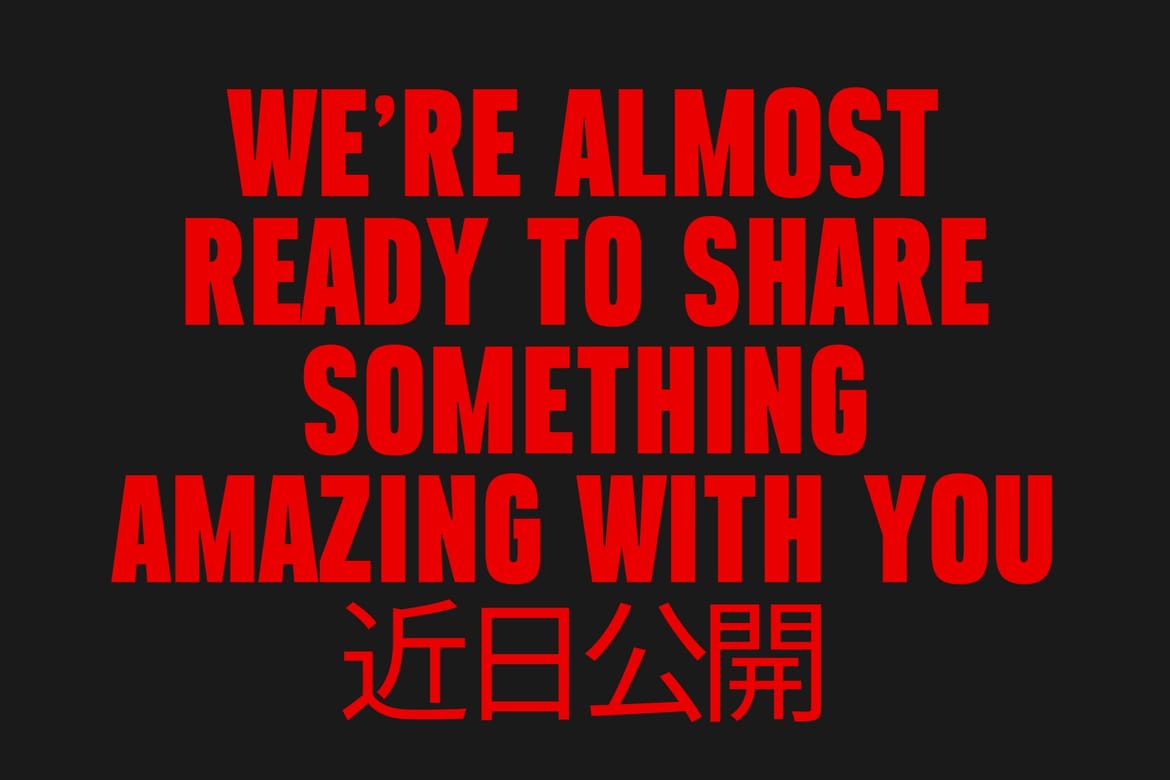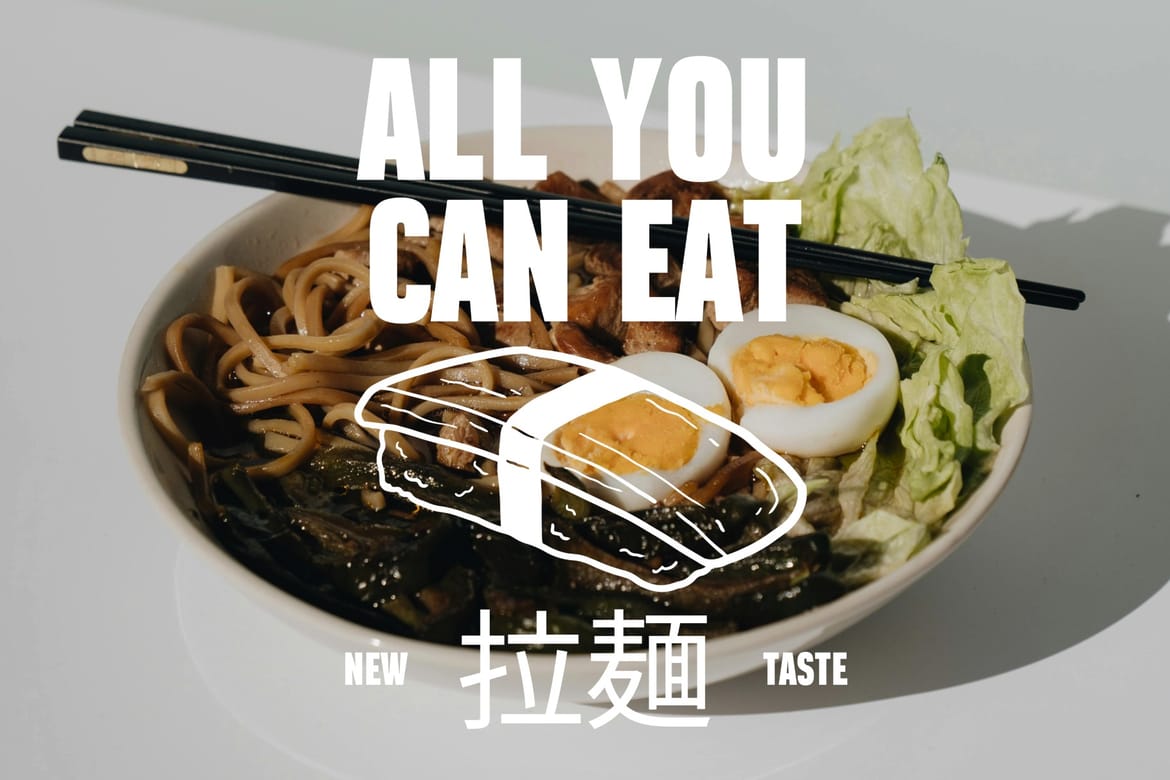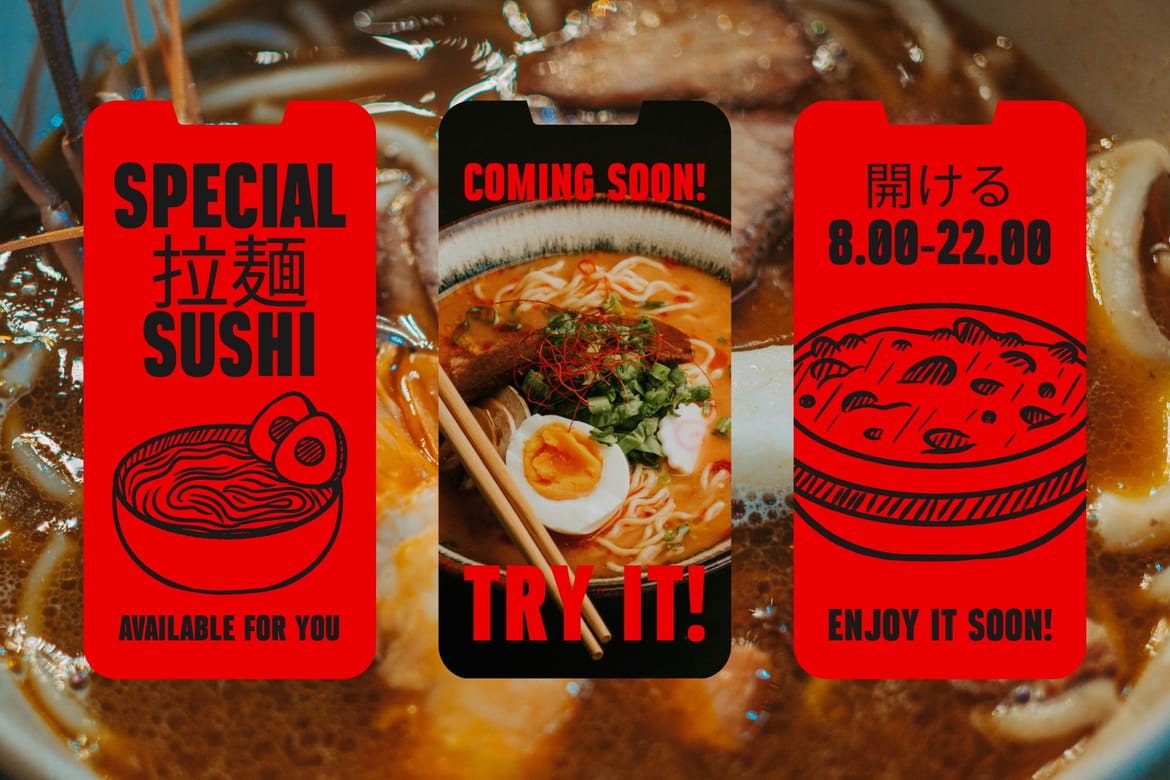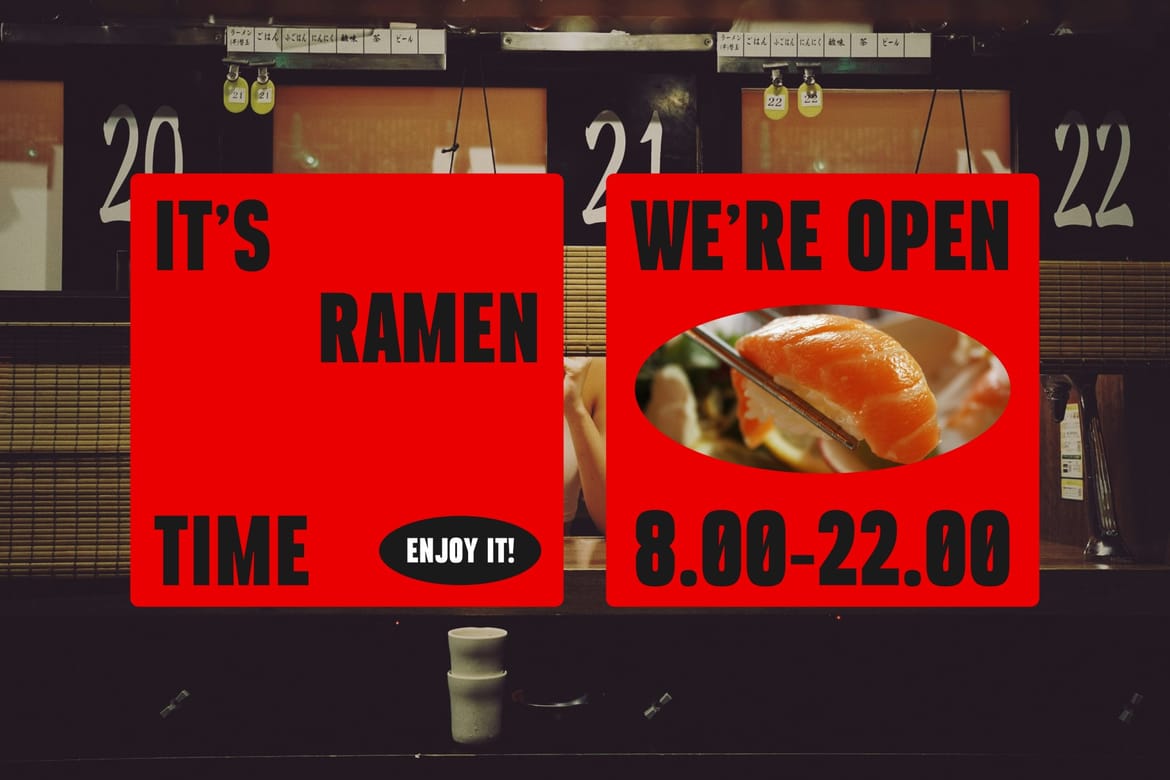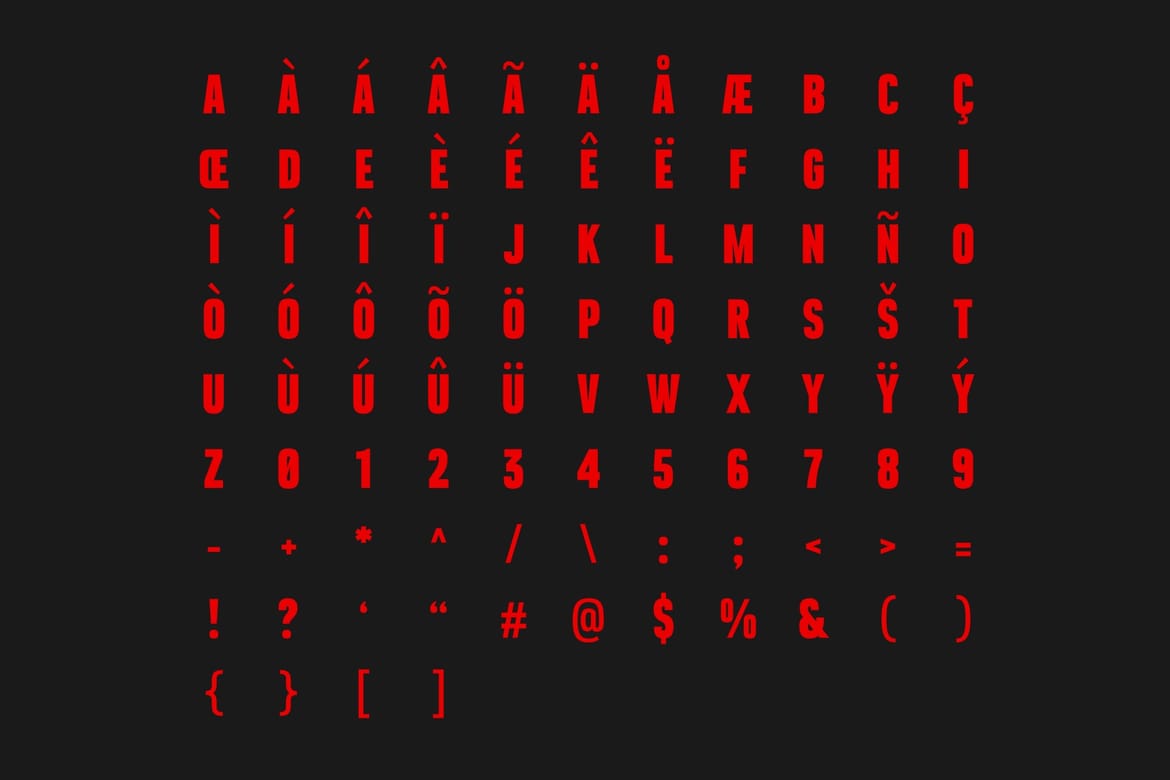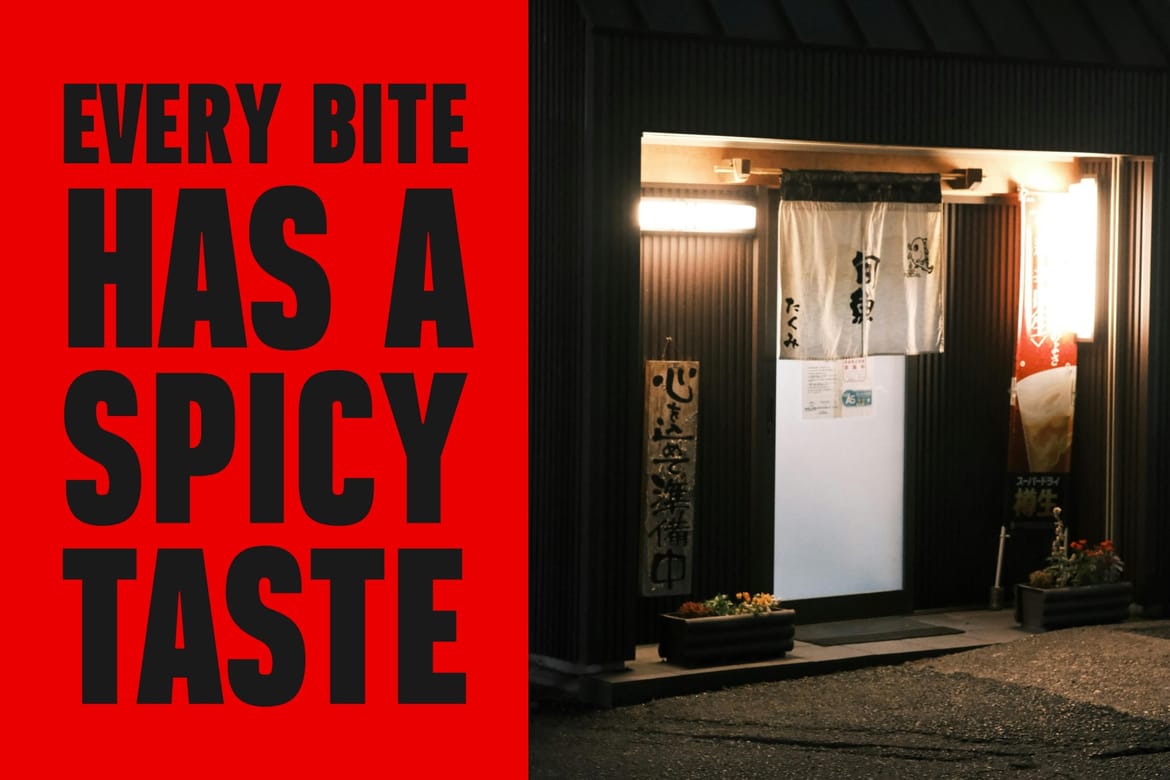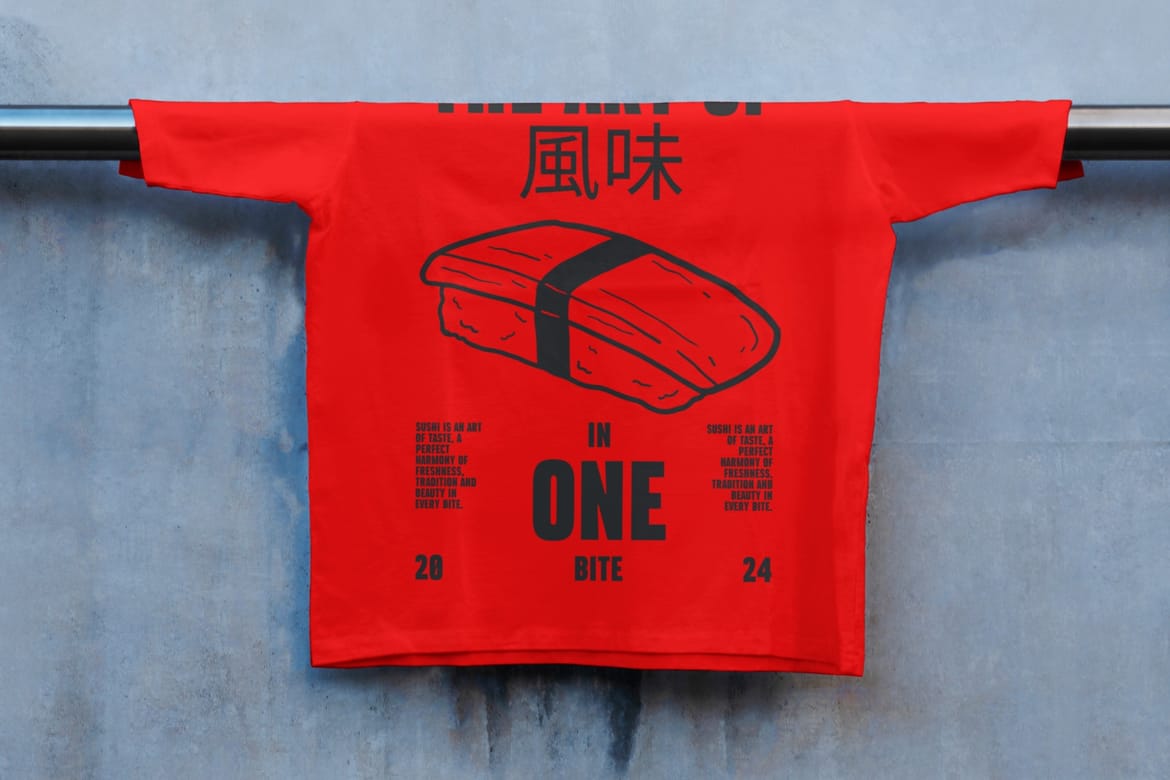
Introducing Grand Torre, a bold Display Sans Serif Font designed for impactful visual statements. Its clean lines and strong presence make it ideal for modern branding, headlines, and advertising. Grand Torre stands out with its geometric shapes and contemporary style, adding a touch of sophistication to any design project. Perfect for posters, logos, and digital content, this font ensures readability and elegance. Elevate your creative projects with Grand Torre and make a lasting impression with its striking, professional look.